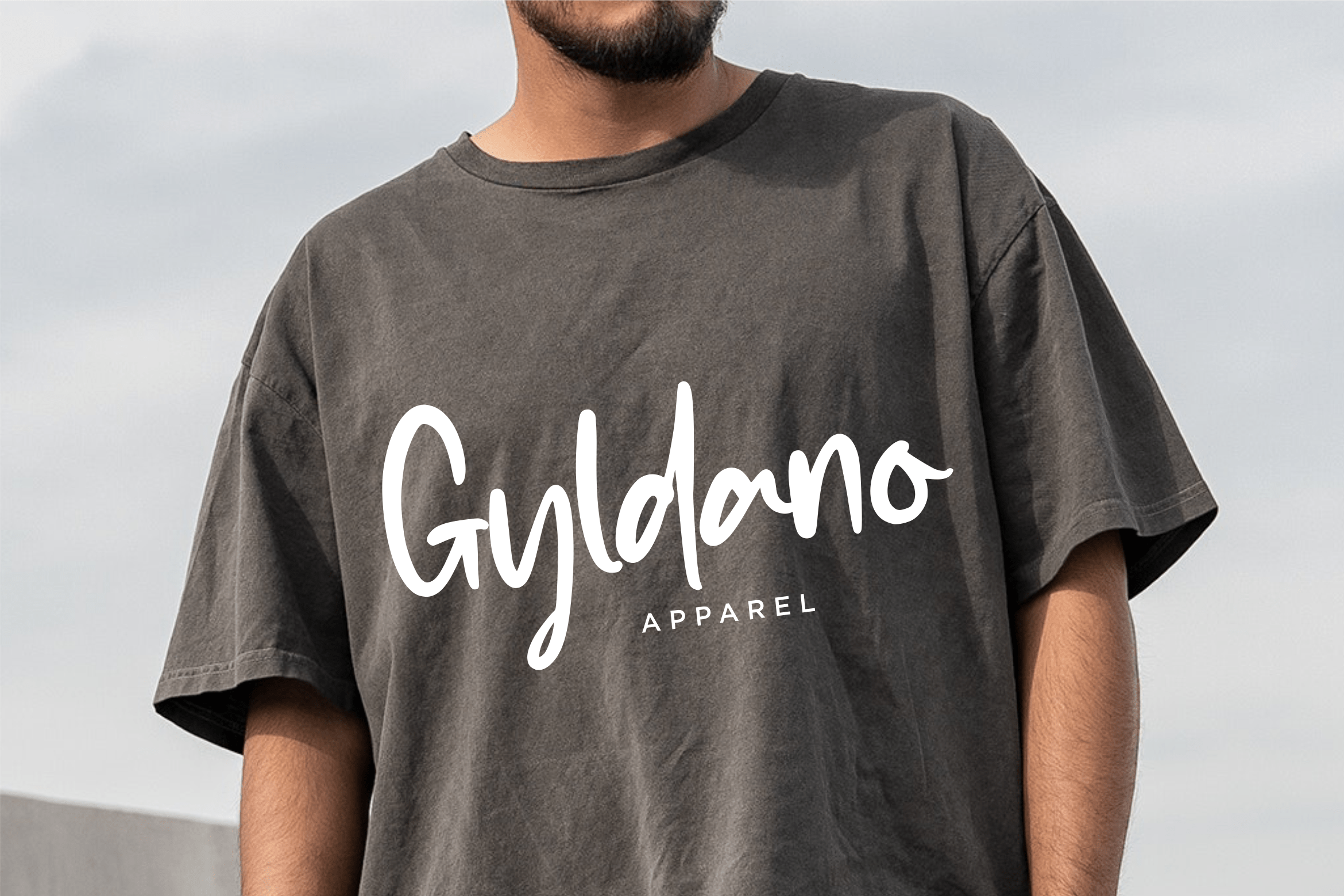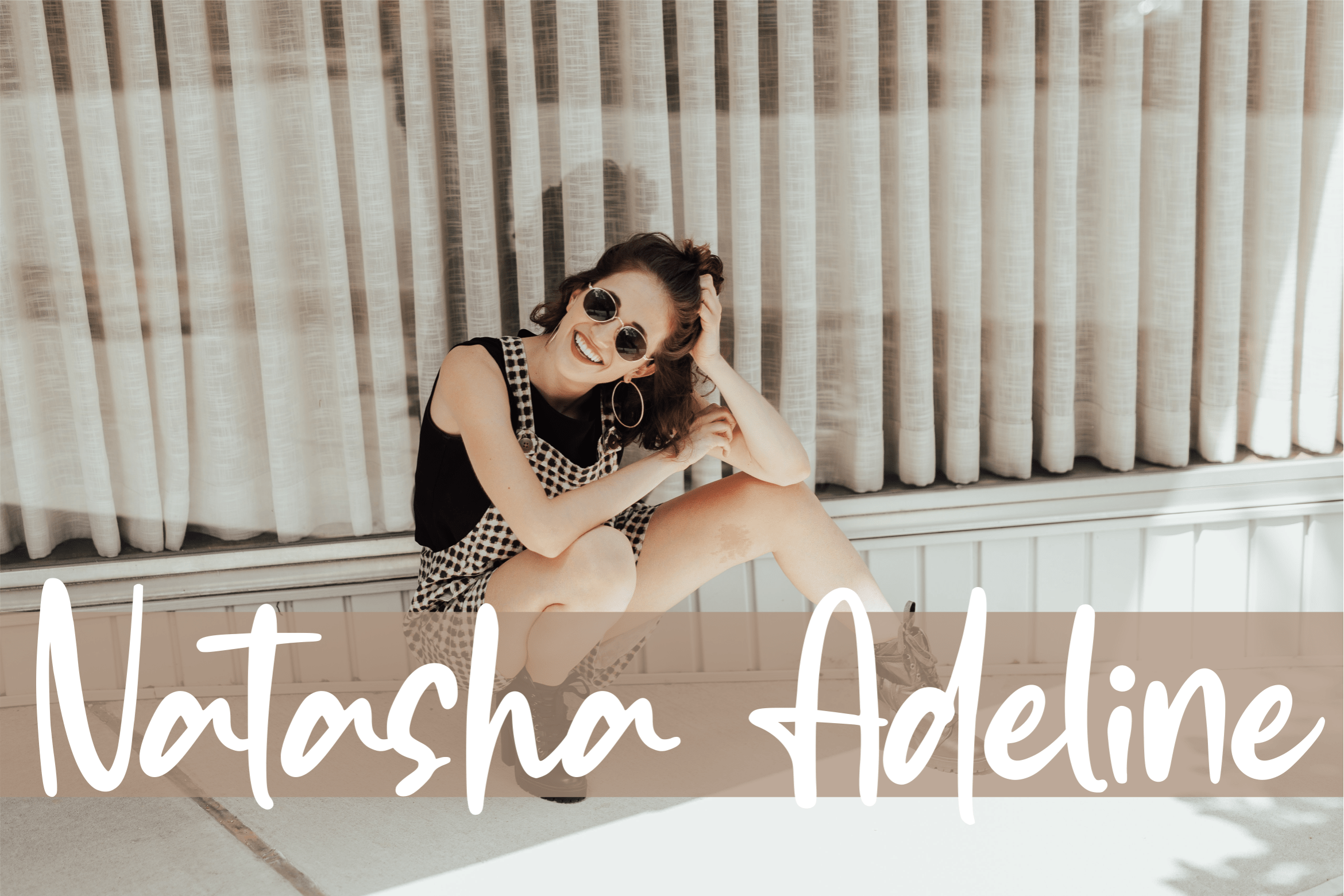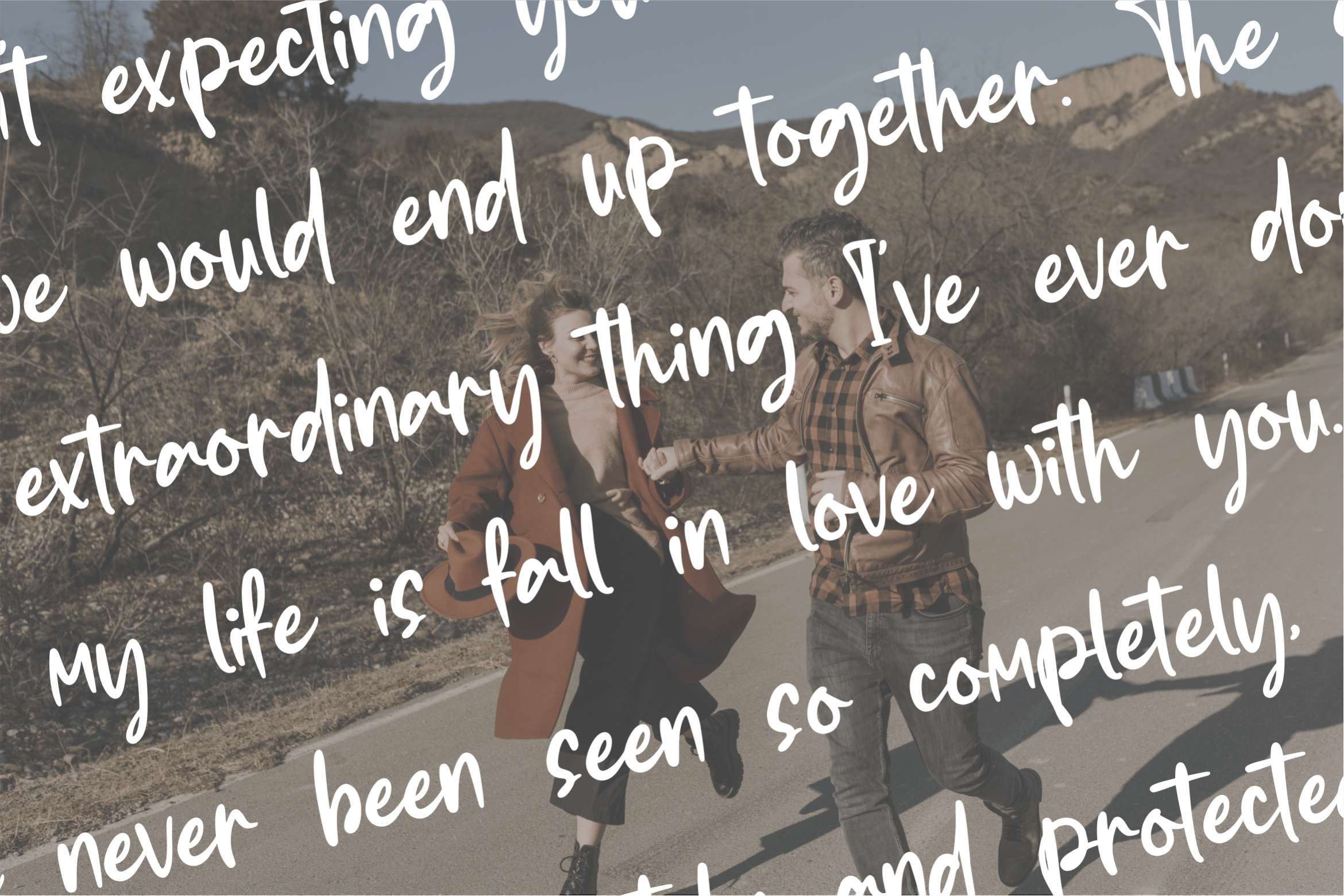
Chromatical Font
Chromatical Script Font
It’s a sweet and delicate handwritten font. Dainty and joyful, this font will be ideal for writing wedding invitations, cards or any other design that may need a romantic, personalized touch!